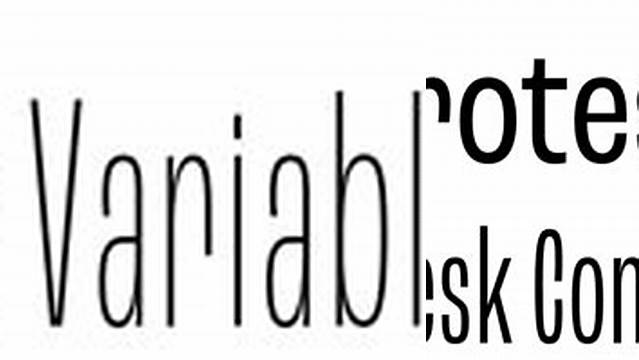
Hey everyone! Are you looking to spice up your design projects? Want to add a touch of modern flair with a font that's both versatile and stylish? Well, you've come to the right place! Today, we're diving headfirst into the world of the Roc Grotesk variable font – a true gem for designers of all levels. This article will give you everything you need to know about how to snag a Roc Grotesk variable font free download, plus tips and tricks on how to make the most of this amazing typeface. Get ready to unlock a whole new level of creativity! Let's jump right in!
Roc Grotesk Font: A Deep Dive into its Origins and Design
So, what exactly is Roc Grotesk? It’s a modern sans-serif font that's known for its clean lines, geometric shapes, and overall contemporary aesthetic. The font was created with a focus on versatility and legibility, making it an excellent choice for a wide range of design projects, from website headers to print materials. The designers behind Roc Grotesk have crafted a typeface that's both functional and visually appealing, ensuring that your text not only looks great but also communicates effectively. Unlike some fonts that sacrifice readability for style, Roc Grotesk strikes a perfect balance. This font is also designed as a variable font. That means you can customize it as you want.
What really sets Roc Grotesk apart is its modern touch. The font features clean lines and geometric shapes, giving it a contemporary look that works well in various applications. Its versatility is what makes it a standout choice for designers. Whether you’re working on a website, a poster, or a logo, Roc Grotesk adapts seamlessly. It maintains its visual appeal across different mediums, ensuring that your designs always look their best. Plus, the font's neutral style means it complements a wide range of design aesthetics, making it easy to integrate into existing projects or use as a foundation for new ones. Choosing Roc Grotesk means choosing a font that enhances your message without overpowering it. Its inherent elegance ensures that your text is both seen and understood.
The thought behind Roc Grotesk’s design speaks volumes. Its primary goal is to be both visually striking and supremely useful. The designers understood the need for a typeface that could adapt to various design requirements. That’s why Roc Grotesk includes different weights and styles. With the right variation, you can customize everything from headings to body text. You can fine-tune the font's appearance to perfectly match the tone and style of your project. This adaptability is not merely about aesthetics; it enhances user experience. Readable fonts lead to better communication and more engaging designs. Its clean lines, optimized spacing, and overall clarity provide great readability, which is a key element for both digital and print projects. So, you’re not just picking a font, you’re choosing a versatile design tool.
The Power of Variable Fonts: Exploring Roc Grotesk's Customization
Alright, let's talk about variable fonts! Think of them as fonts on steroids. Instead of just having bold, italic, or regular styles, variable fonts let you adjust the font’s weight, width, slant, and other properties along a continuous spectrum. This gives you incredible control and flexibility. With a Roc Grotesk variable font, you can fine-tune the font's appearance to suit your specific needs. From subtle adjustments to dramatic transformations, the possibilities are endless. Variable fonts eliminate the need for multiple font files. They streamline your workflow and reduce file sizes, making your projects more efficient. In the digital world, where speed and performance are paramount, variable fonts offer a distinct advantage.
With the Roc Grotesk variable font, you're not just choosing a typeface; you're unlocking a world of creative possibilities. Imagine being able to create a smooth transition between different weights, widths, or styles, all within a single font file. This level of control allows for unique and dynamic typography that can set your designs apart. Variable fonts are revolutionizing the way designers approach typography. This means that you can create more engaging and interactive designs with ease. Think about how you can use them in animations, responsive designs, or even interactive experiences. Variable fonts are transforming how we design and experience the written word, adding a new dimension to visual communication.
Benefits of Using Roc Grotesk Variable Font
So, why should you choose the Roc Grotesk variable font? Well, first off, it's super versatile. You can use it for everything from website headlines to body text, and it always looks clean and modern. Because it's a variable font, you get tons of customization options. This means you can tweak the weight, width, and other properties to create exactly the look you want. It's also incredibly efficient. You don't need to load a bunch of different font files, which speeds up your website and makes your projects run smoother. Its modern design ensures your work looks fresh and appealing. Its flexibility means that it adapts well to all kinds of design challenges. The variable nature of the font offers a wide range of creative possibilities, allowing you to fine-tune its appearance to match your project’s specific needs. By choosing Roc Grotesk, you’re choosing a font that combines style, functionality, and efficiency.
With Roc Grotesk, you can really make your designs stand out. Its versatility makes it ideal for everything from bold headlines to the more subtle body text. Because of its design, it ensures that your message is not only readable but also visually appealing. It is the ideal tool for creating projects that reflect current design trends. Its design also ensures that it is readable and beautiful across various media, from the web to print. The benefits don’t stop there. Choosing the Roc Grotesk variable font means you're embracing a font that's both forward-thinking and practical. This font is designed to keep up with current technological advancements and design trends, making it a safe bet for any designer hoping to stay ahead of the curve. Its blend of style, flexibility, and efficiency makes it a valuable asset for any design toolkit.